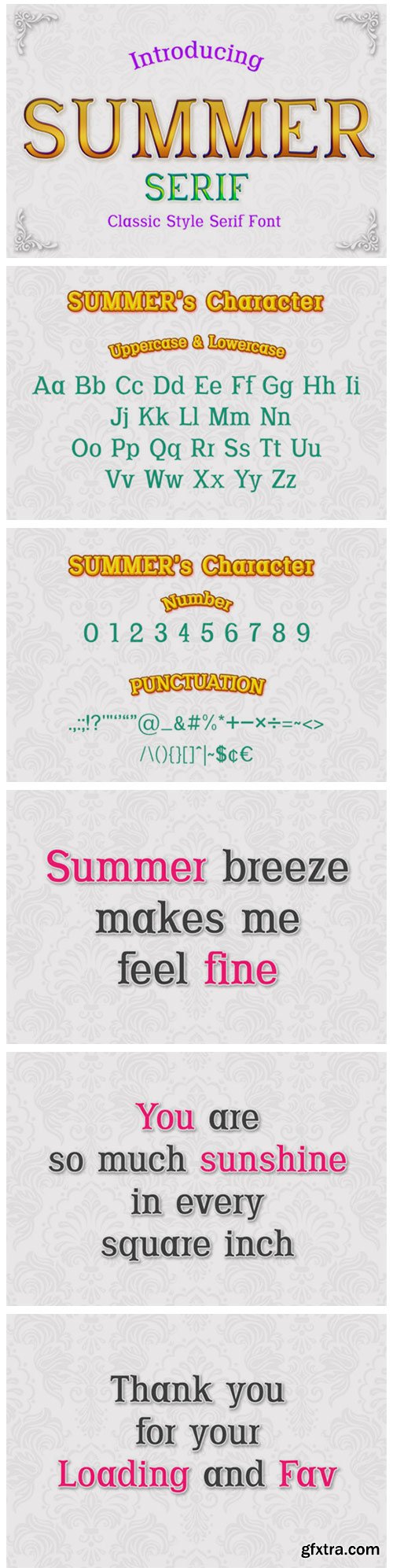
Summer Font
Summer is a classic and neat serif font. It can easily be matched to an incredibly large set of projects, so add it to your creative ideas and notice how it makes them stand out!